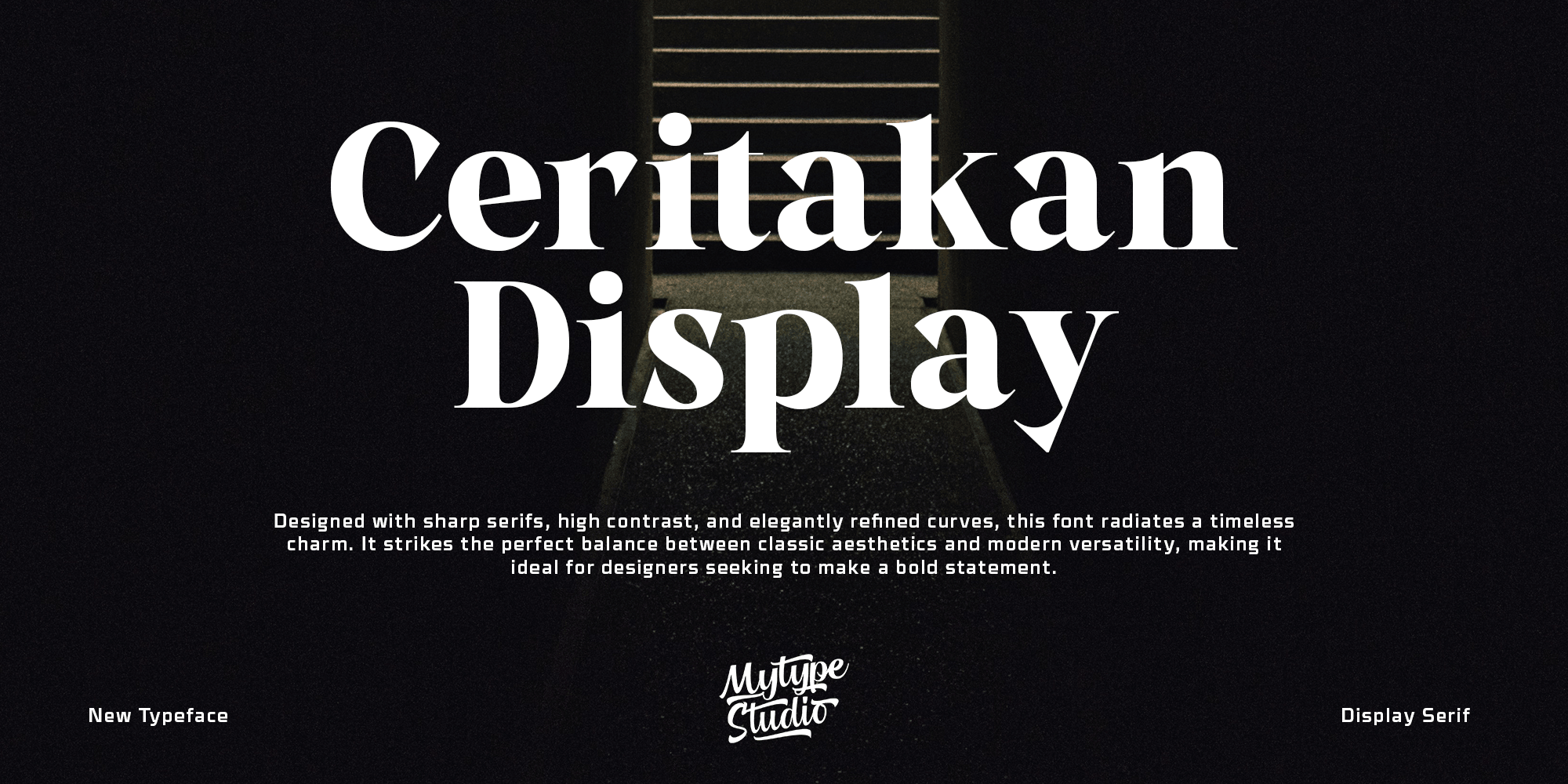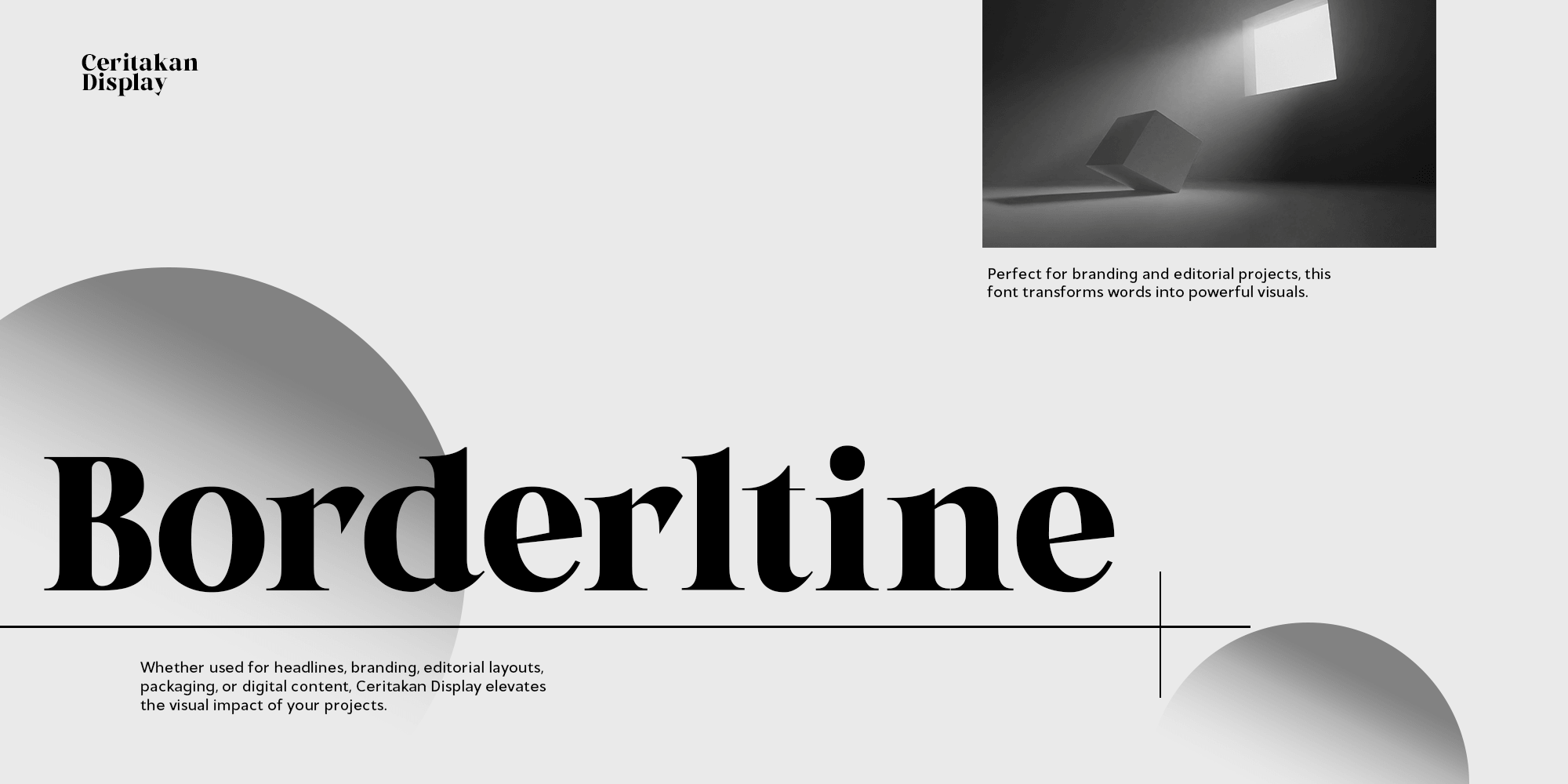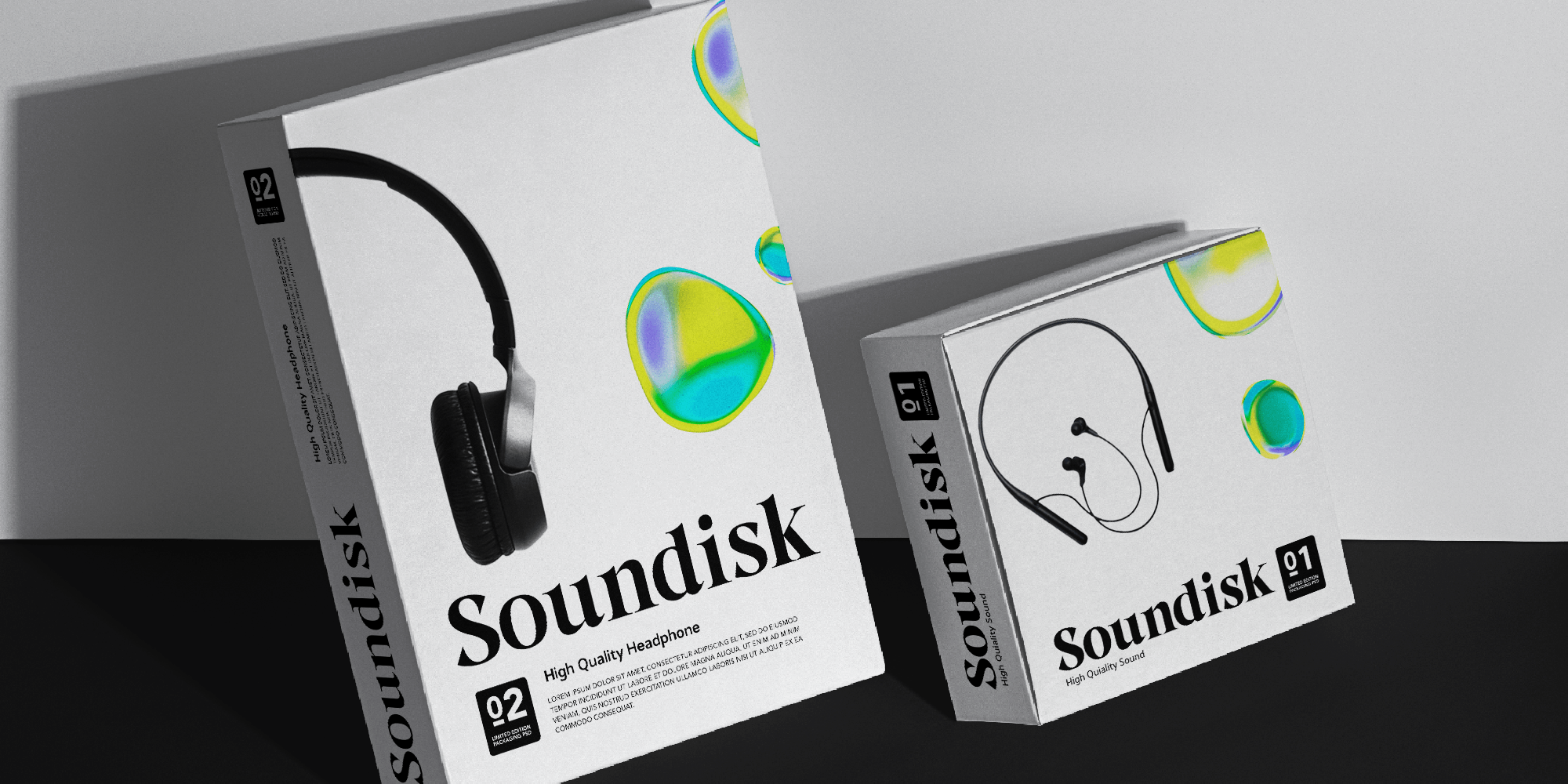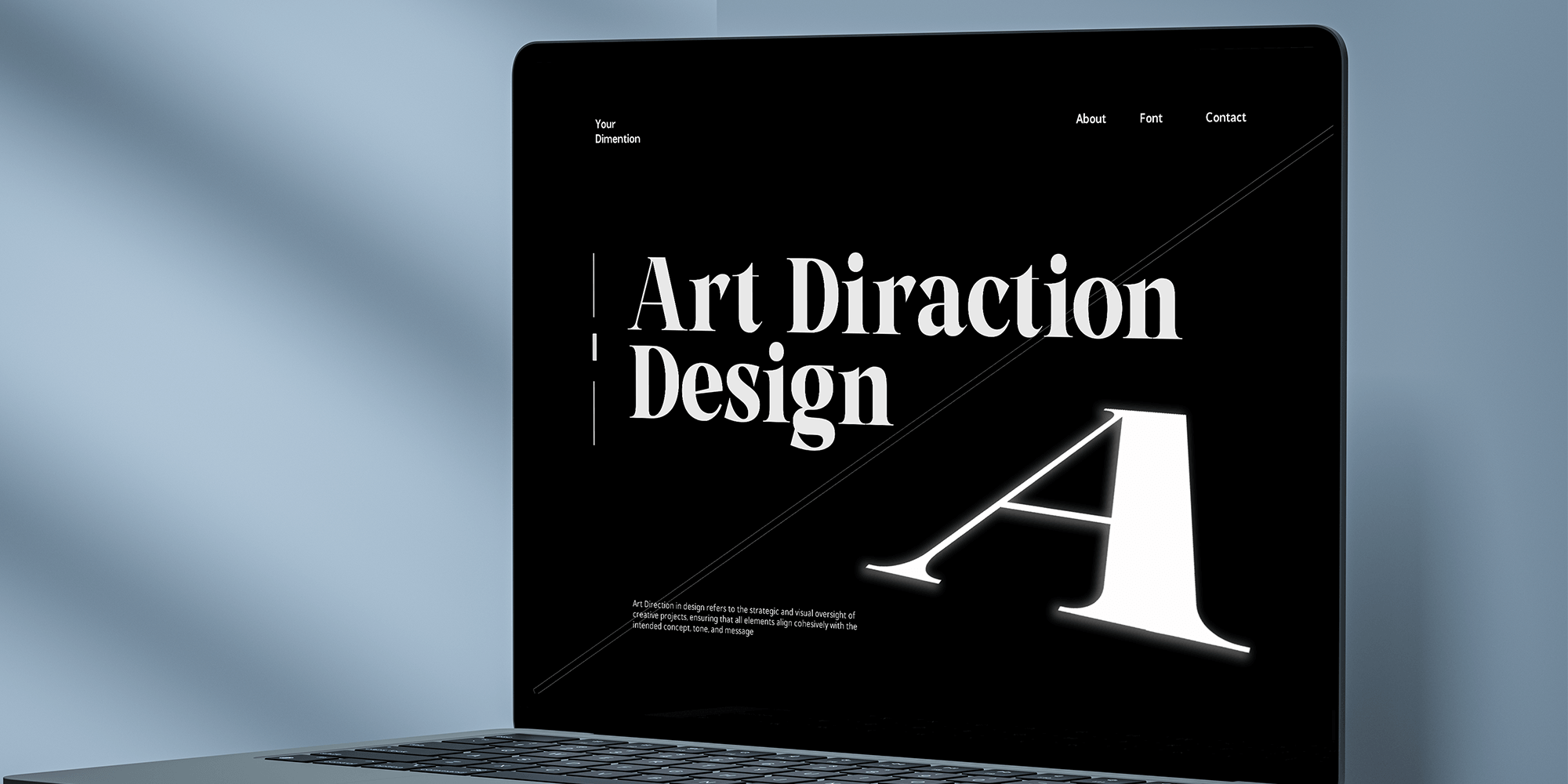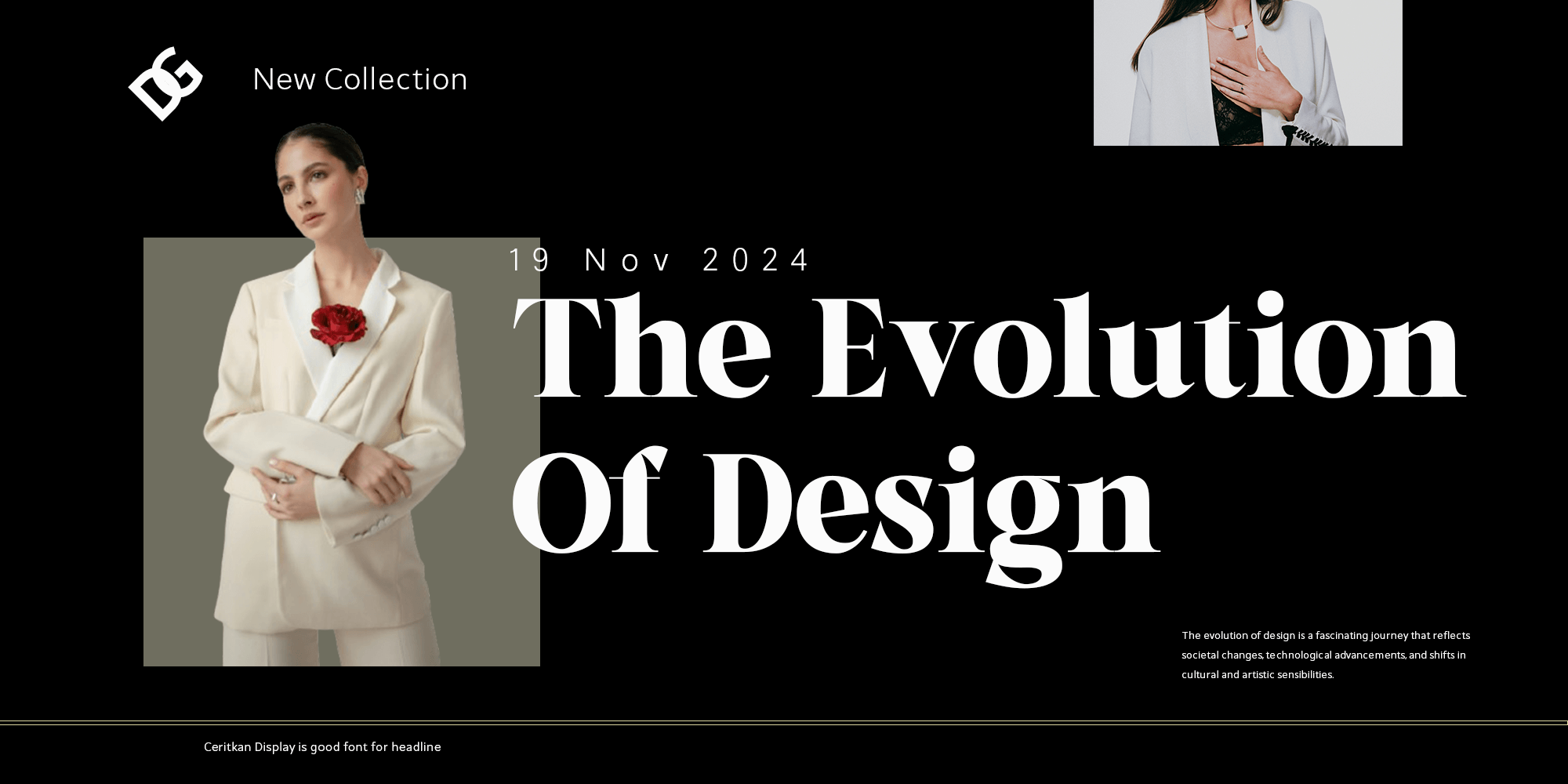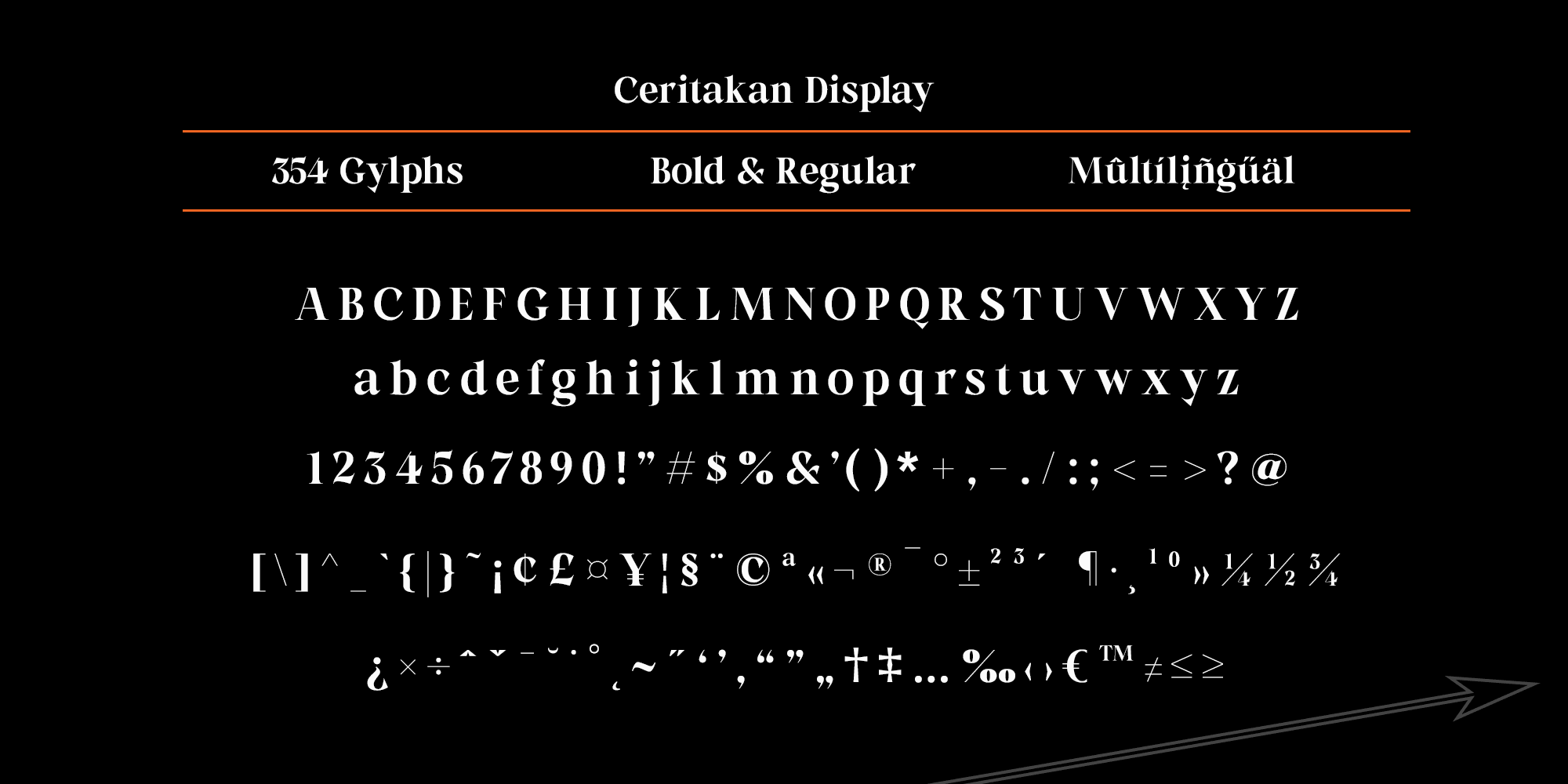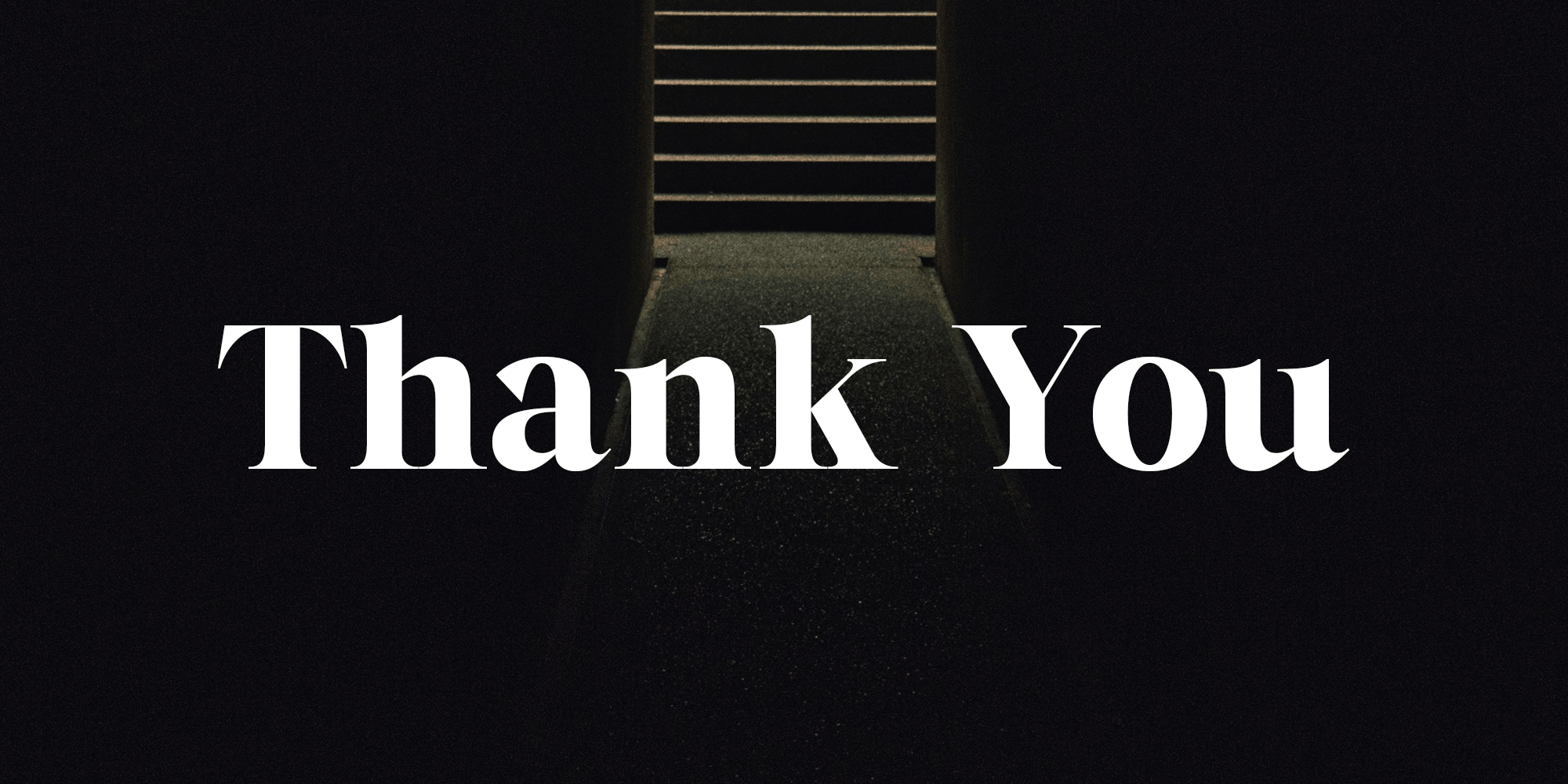
Ceritakan Display
Ceritakan Display, is a captivating typeface that blends sharp serifs, high contrast, and elegantly refined curves to create a bold and timeless appeal. Its modern versatility makes it perfect for projects that demand sophistication and visual impact. Ideal for branding, editorial design, and elegant presentations, this font strikes the perfect balance between classic aesthetics and contemporary flair. Step into timeless elegance with Ceritakan Display. Where bold serifs meet refined curves, every detail speaks of sophistication and versatility. Perfect for designers who want their work to radiate confidence and make a lasting impression. Make a statement, tell your story—Ceritakan Display does it all.